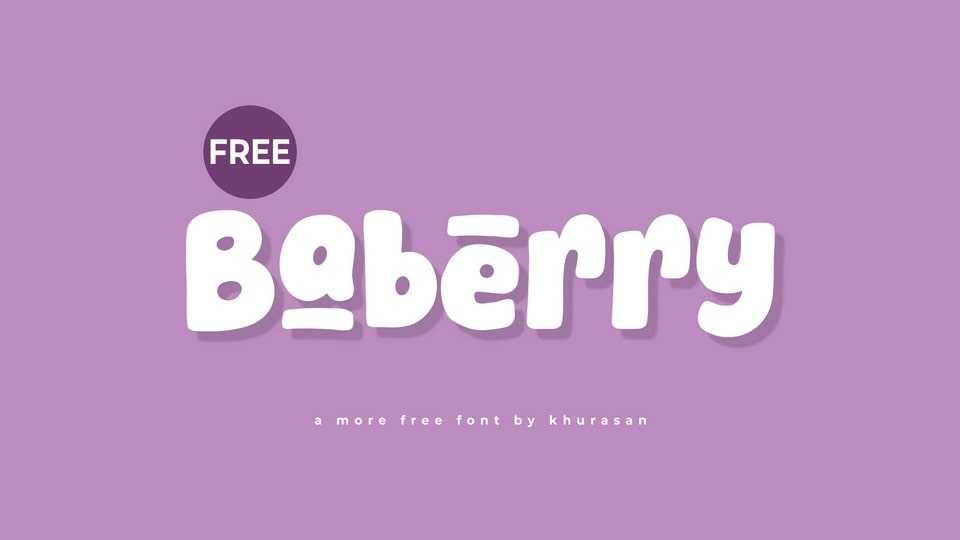
Download Baberry font, a playful and cute hand-drawn typeface that radiates warmth and joy. With its rounded, slightly imperfect letterforms and friendly design, this font adds a charming, personal touch to any project.